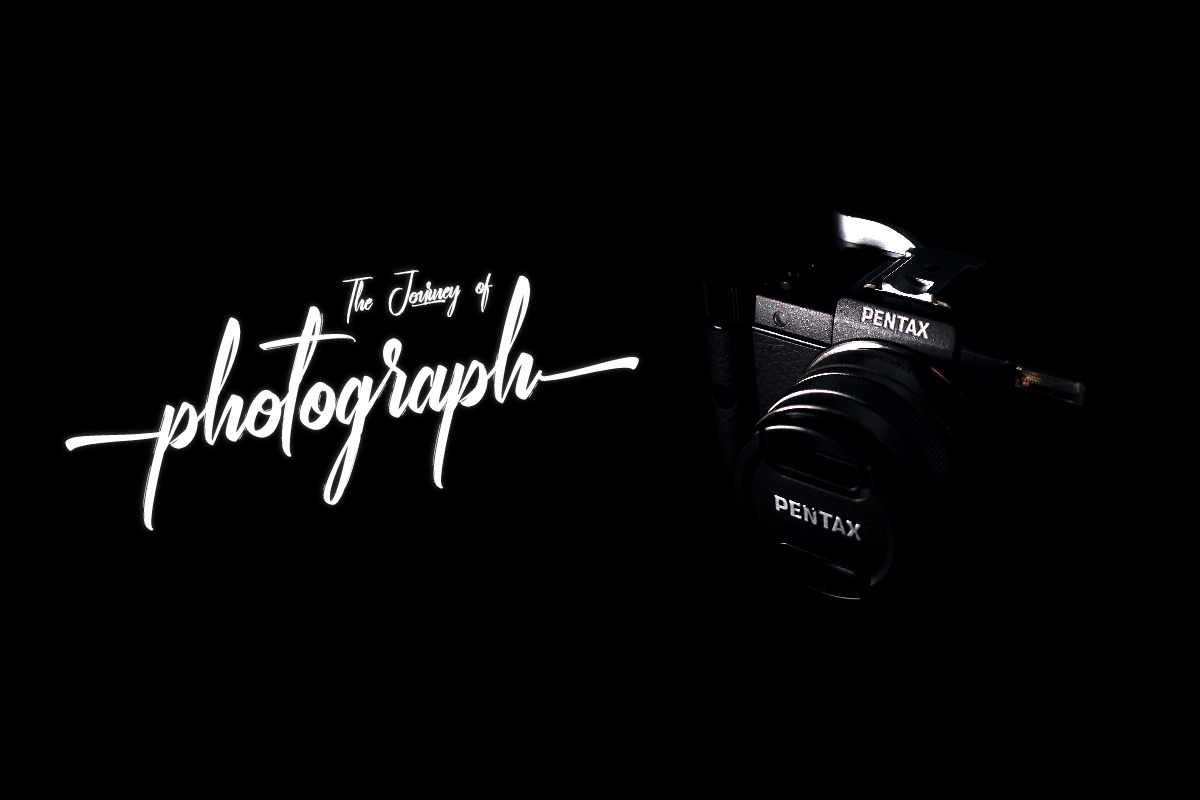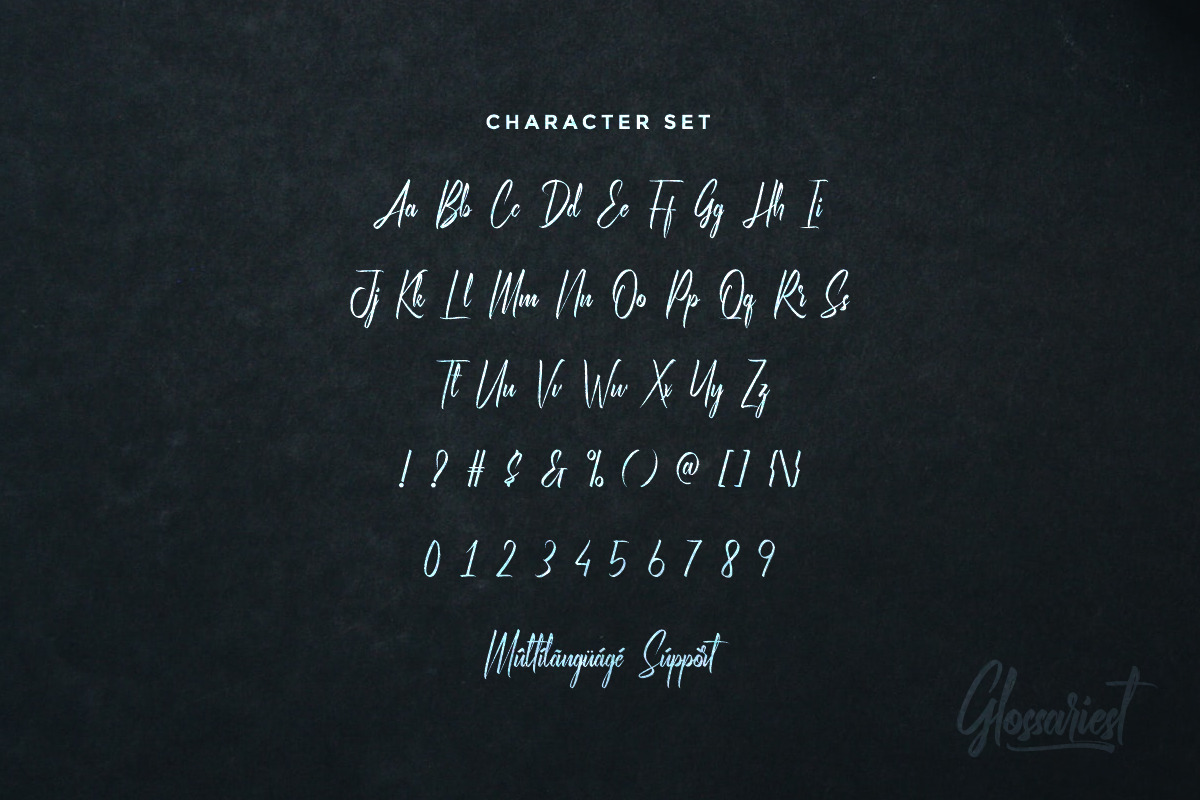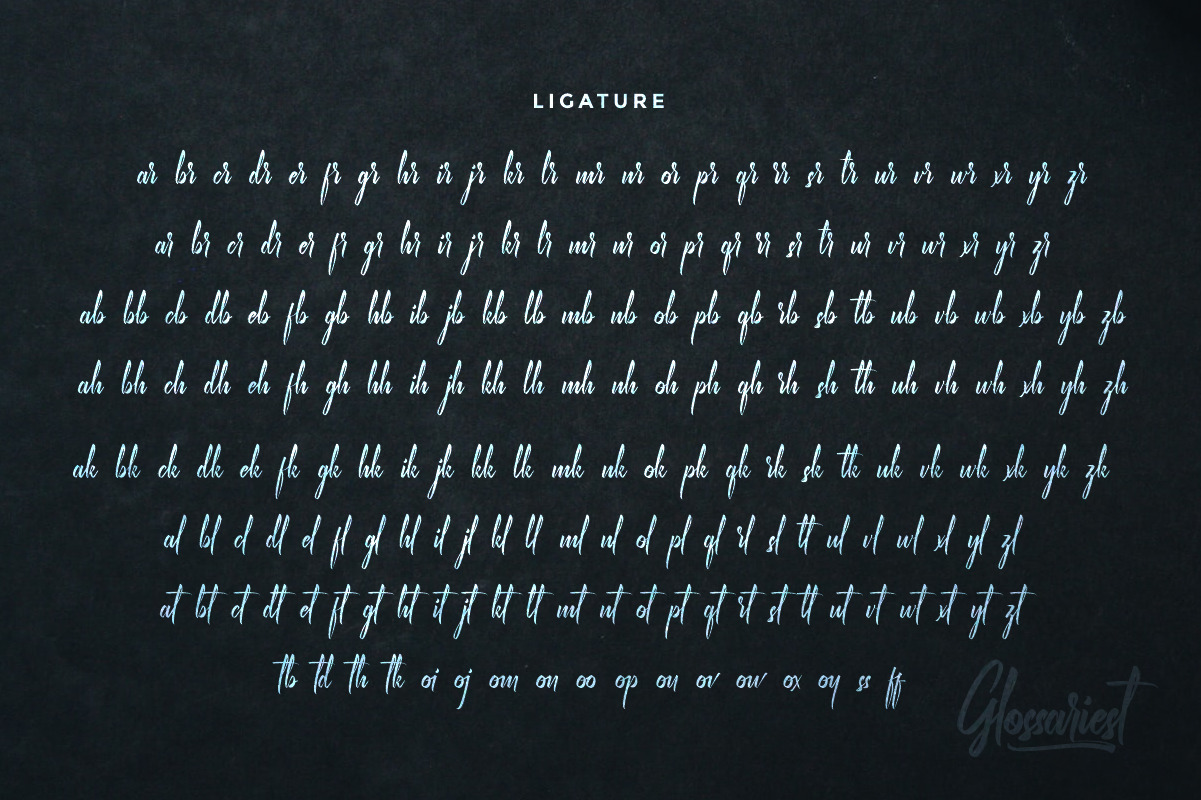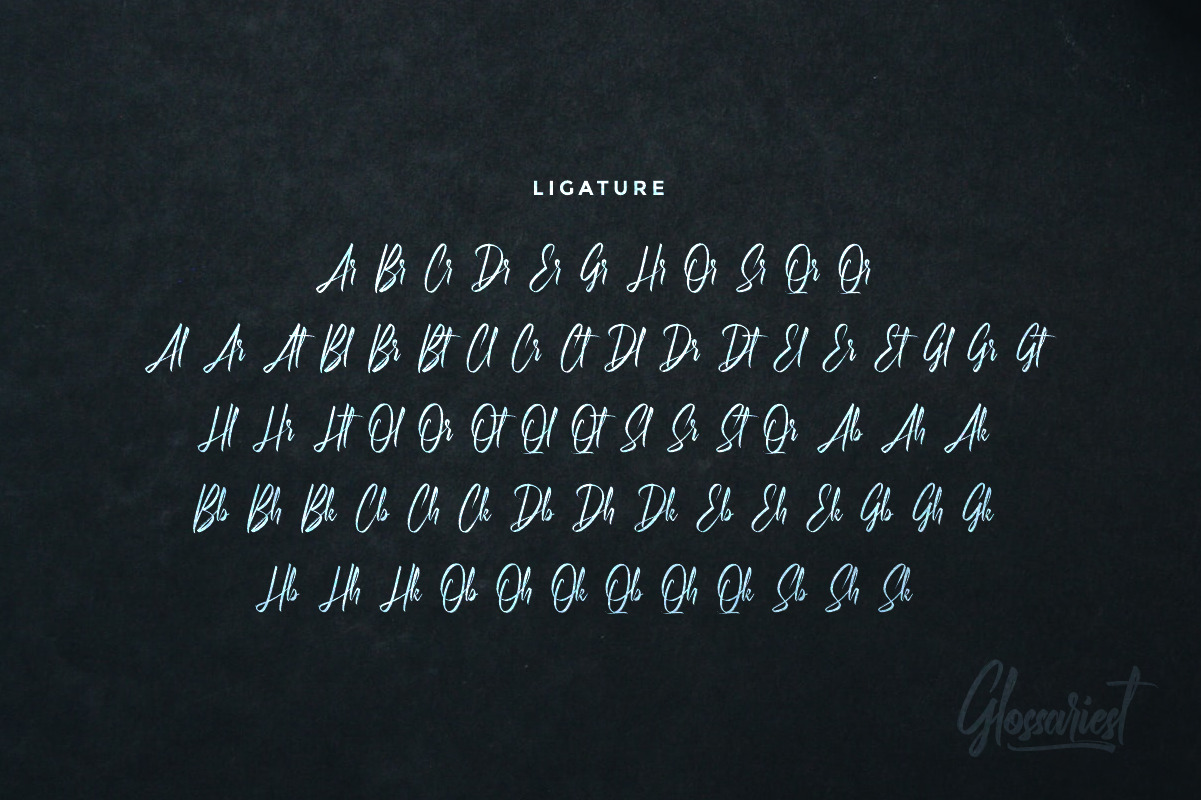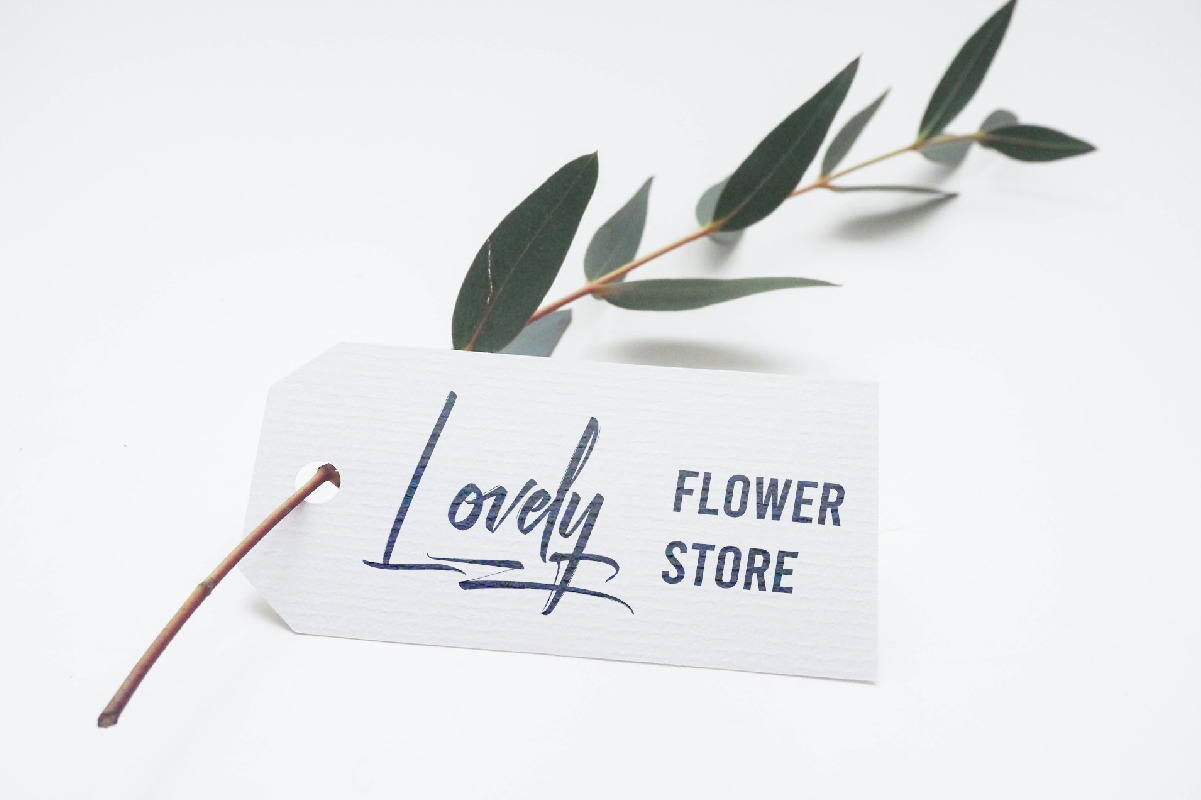
Glossariest Textured Brush Script Font
Glossariest Font is a textured vintage brush font with exclusive style.
Glossariest great for any your special projects including : headlines, promotion, events, branding, advertising, magazine, signage, invitation, stationery, social media posts, label, or and any projects that need unique strong style. The theme/industries of this font is Vintage, Horror, Movie, Game, Magazine, Music, Video, Sports, Racing etc
Glossariest Font includes full set of AWESOME uppercase letters, numerals, a large range of punctuation and ligatures. With a unique textured effect.